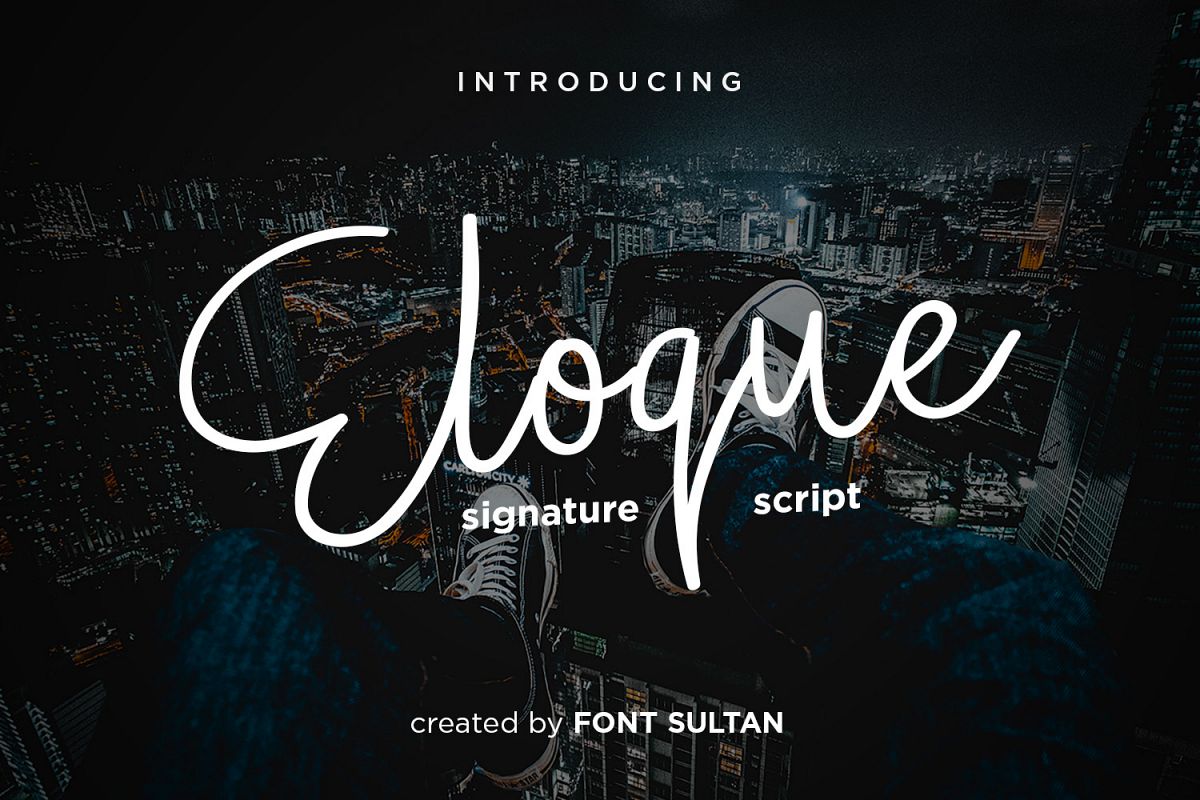
Elogue
hi. FONT SULTAN proudly introducing our first product called Elogue.
Elogue is a font signature that is suitable for your design needs.
This font can meet your needs for various uses such as logos, signatures, business cards, invitations and many more.
- ligatures